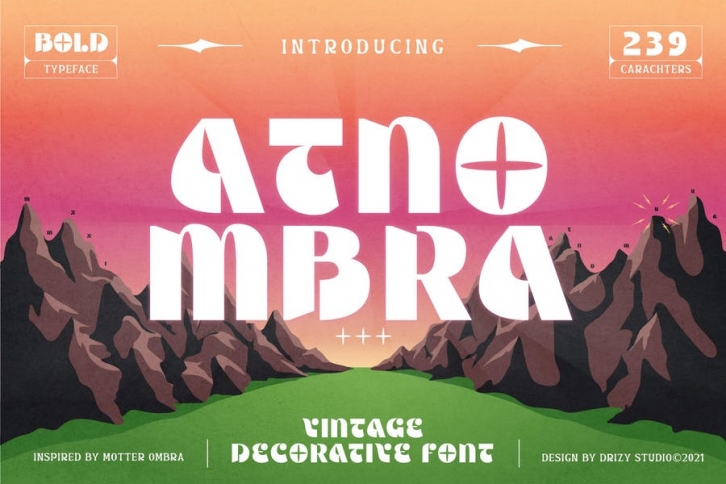
Introducing Atnombra! a Vintage decorative font from Drizy studio, inspired by Motter Ombra font. Atnombra is a retro, vintage, and bold typeface. With uppercase characters, ligatures, numbers, and punctuation. This font makes way for the creativity of each and every one. Atnombra is great for creating eye-catching headlines, logo, applicable for any type of graphic design web, print, motion graphics, perfect for poster/flyer, branding, packaging, pictograms, etc.